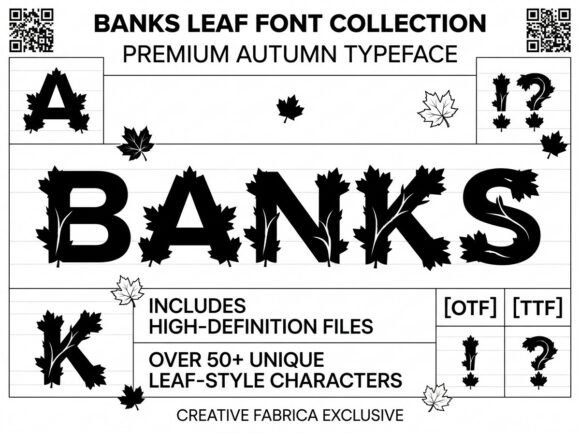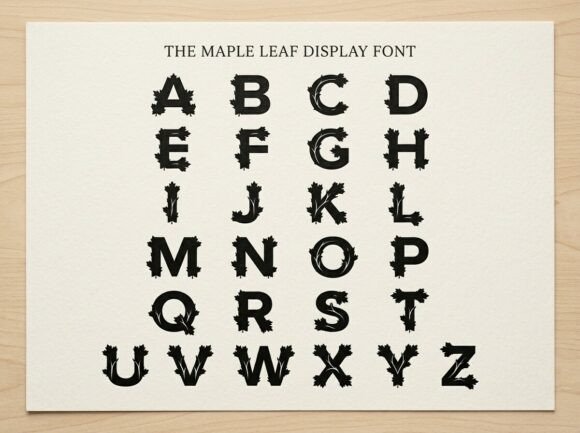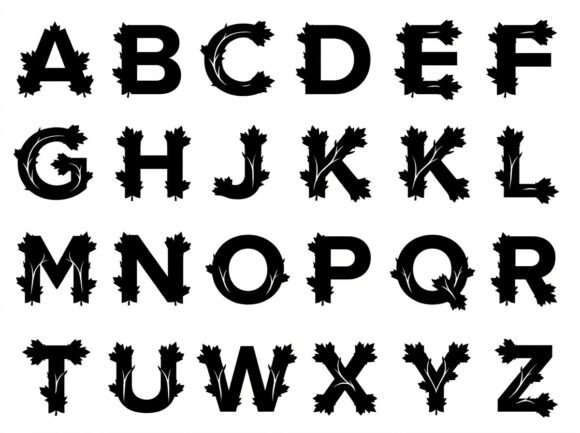
Introducing Banks Font: The Ultimate Avant-Garde Display Typeface
In the world of typography, a new star has emerged: Banks Font. This revolutionary display font is engineered to be the focal point of any composition, making it a game-changer for designers and crafters who refuse to blend in. Characterized by its commanding visual personality and unique artistic flourishes, Banks Font is the perfect choice for those who want to make a statement.
A Font that Defies Convention
Banks Font is not just a typeface; it’s a work of art. With its strong, artistic soul and high-end, polished finish, this font is suitable for a wide range of applications, from luxury packaging to experimental editorial layouts. Whether you’re a seasoned designer or a crafty entrepreneur, Banks Font is the perfect tool to elevate your brand and make it stand out from the crowd.
Ideal for High-Impact Designs
Banks Font is specifically designed for high-impact designs that demand attention. Its unique and intricate craftsmanship makes it ideal for:
- High-impact headlines that grab attention
- Signature logos and branding that make a statement
- Conceptual packaging that showcases creativity
- Poster and social media design that demands attention
A Note on Font Style
Please note that Banks Font is an all-caps (uppercase only) display typeface. By omitting lowercase characters, the designer has focused entirely on the intricate craftsmanship of every individual letter, ensuring each one acts as a standalone work of art. This deliberate design choice allows each letter to shine, making it perfect for headlines, titles, and other display purposes.
Why Choose Banks Font?
In a world where typography plays a crucial role in visual communication, Banks Font offers a unique and refreshing alternative. Here are just a few reasons why designers and crafters will love this font:
- Unique Artistic Flourishes: Banks Font boasts intricate and artistic flourishes that add a touch of sophistication to any design.
- High-End Finish: The font’s polished finish makes it suitable for luxury packaging, high-end branding, and other premium applications.
Unlock Endless Creative Possibilities
With Banks Font, the creative possibilities are endless. Whether you’re designing a logo, creating a brand identity, or crafting a social media post, this font is sure to inspire. Its unique and artistic design makes it perfect for:
- Creating eye-catching headlines and titles
- Designing stunning logos and branding materials
- Crafting conceptual packaging that stands out
- Developing a cohesive visual identity for your brand
In conclusion, Banks Font is a game-changing display typeface that’s sure to revolutionize the world of typography. With its unique artistic flourishes, high-end finish, and universal compatibility, this font is perfect for designers and crafters who refuse to blend in. Whether you’re looking to create high-impact headlines, stunning logos, or conceptual packaging, Banks Font is the ultimate tool to elevate your brand and make it shine.